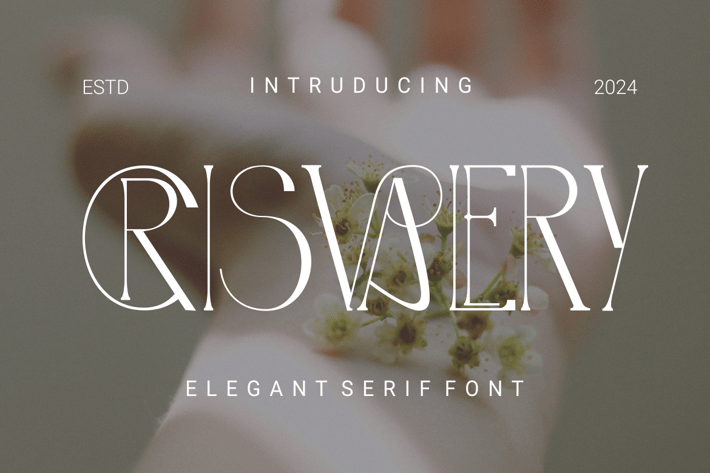
Crisvalery Serif Font
Proudly present our new product Crisvalery Serif Font
is a modern and authentic font. Perfect for professional needs and product branding, this font is suitable for any branding project such as quotes, logos, blog headers, posters, ribbons, letters, invitations, stationery, etc... Designed to be versatile and flexible that can be used on a variety of projects and media. extraordinary in a variety of contexts.